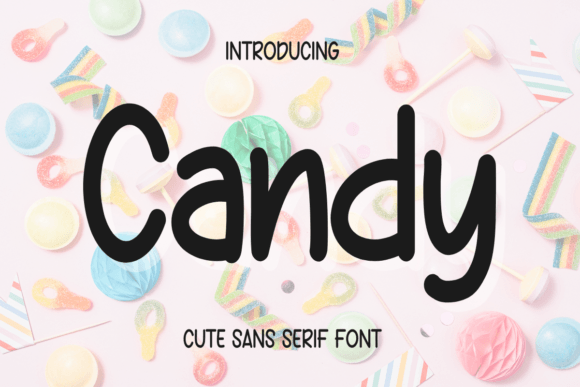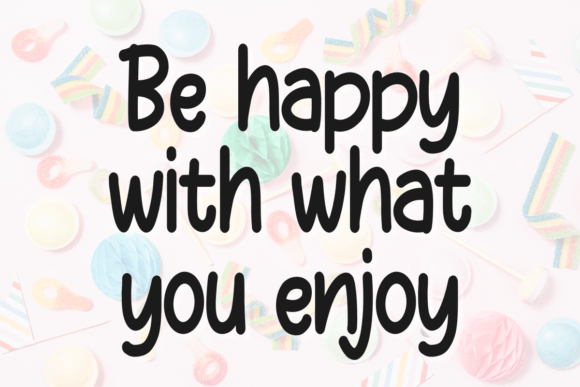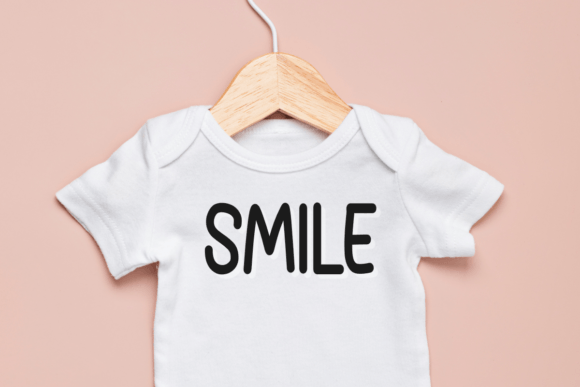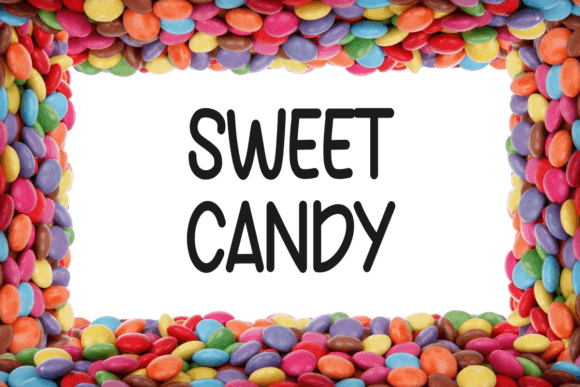
About the Candy Font
Meet Candy Font, a stunning font that brings a touch of elegance and professionalism to any design. Candy, a cute and friendly sans-serif font, is a delightful blend of whimsy and clarity. Its playful curves and rounded edges bring a sense of warmth to any design. Perfect for children’s books, invitations, and branding, Candy radiates a sweet charm that captures attention with its inviting personality.